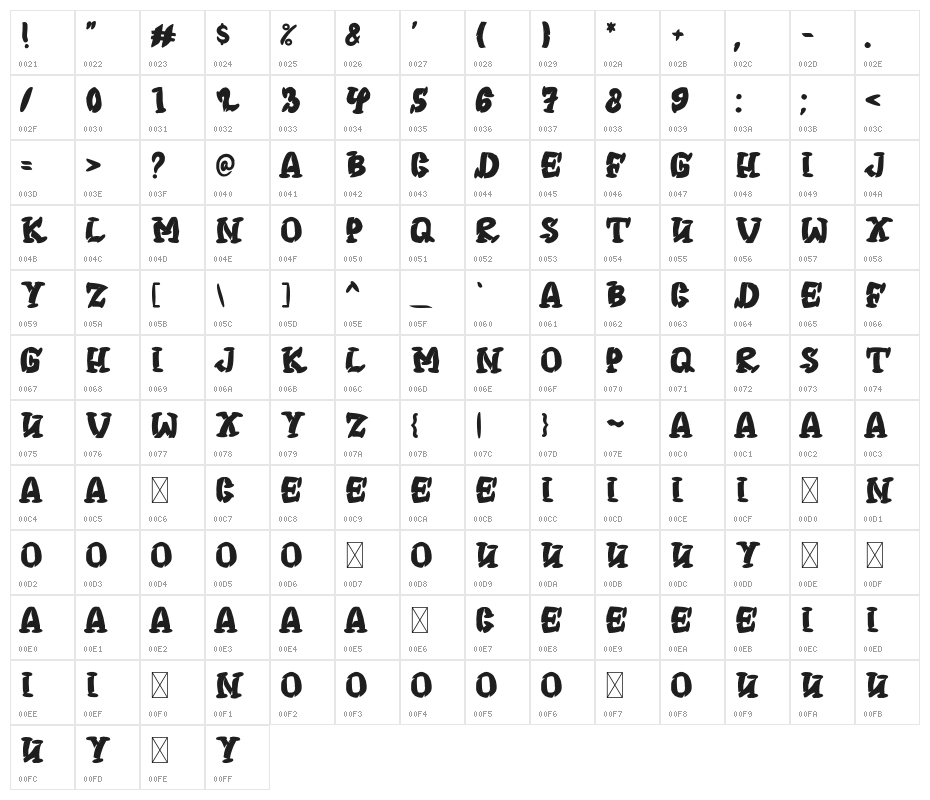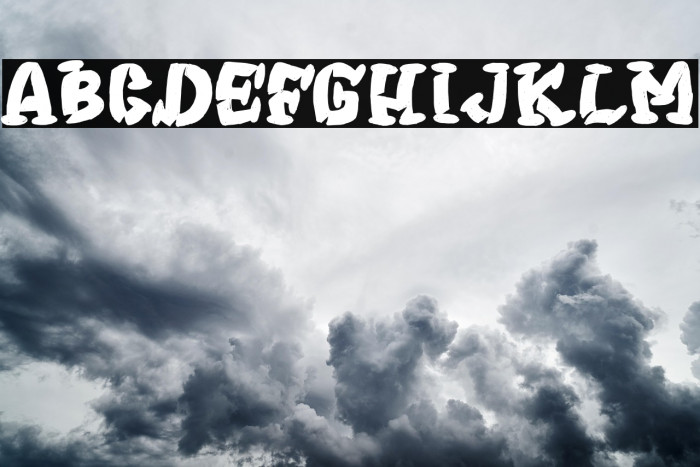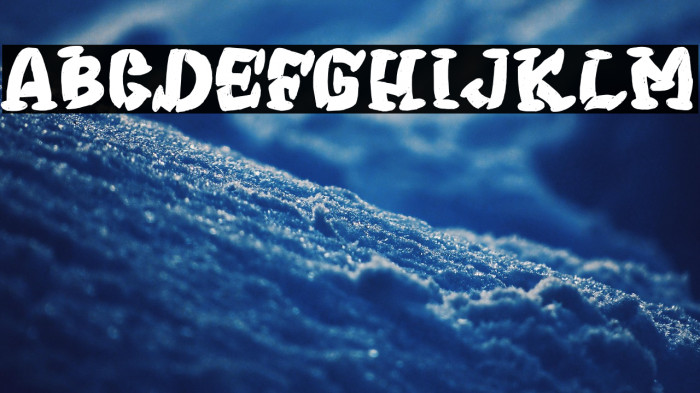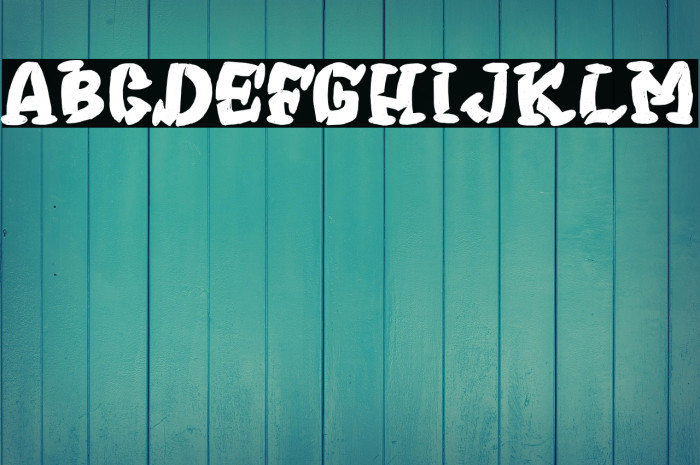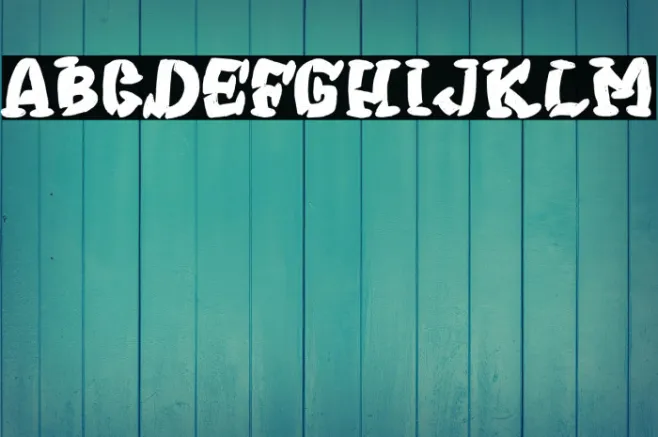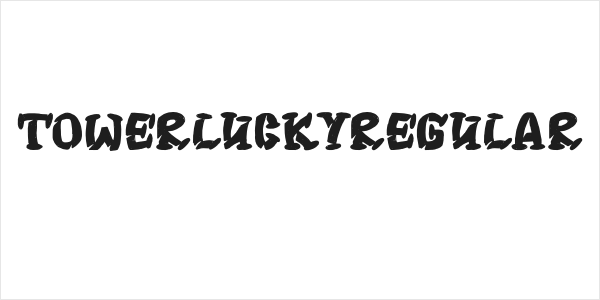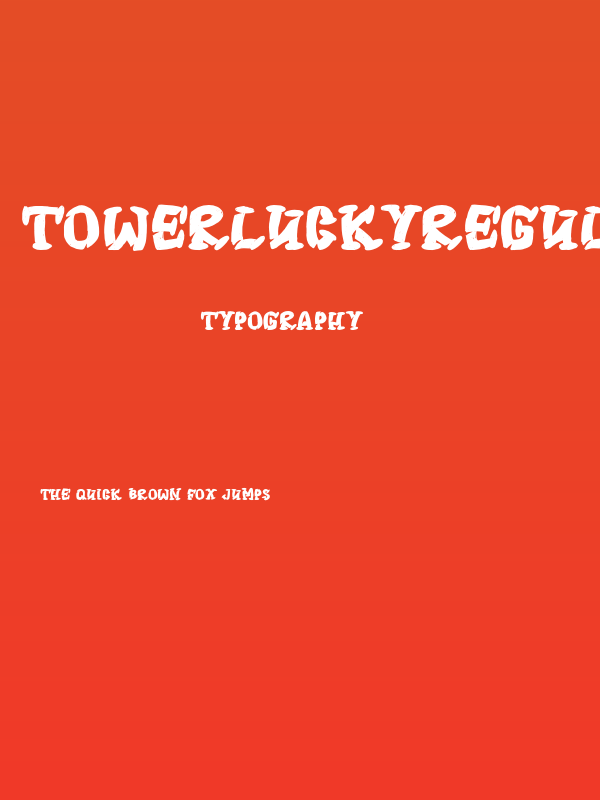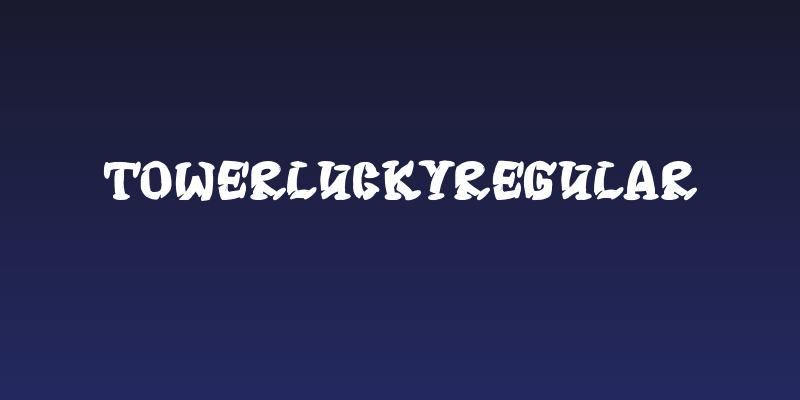
TOWERLUCKYRegular Font
TOWERLUCKYRegular Description
This font exhibits a bold and dynamic style with a strong presence. The characters are crafted with a brush-like appearance, giving them a hand-painted feel. The strokes are thick and uneven, adding a sense of movement and energy. The uppercase and lowercase letters maintain a consistent style, with exaggerated curves and angles that create a playful yet assertive look. The numbers and special characters follow the same design principles, ensuring a cohesive appearance across all elements. This font is ideal for projects that require a bold statement or a creative touch.
| Proposed Projects | Ideal for posters, branding, headlines, and creative design projects that require a bold, artistic touch. |